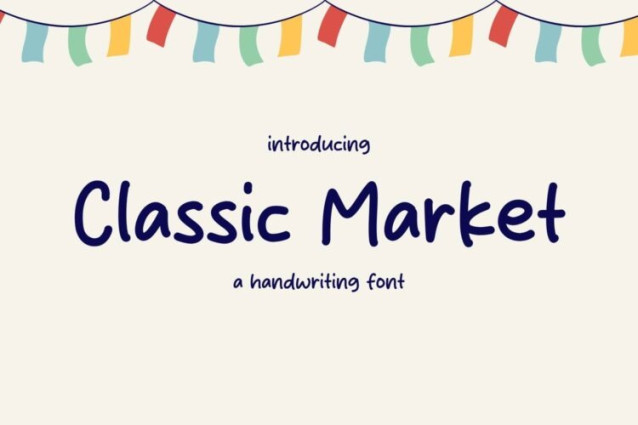
Classic Market Font
Classic Market Font is a simple and friendly handwritten font. Its natural and unique style makes it incredibly fitting to a large pool of designs. The only limit is your imagination!